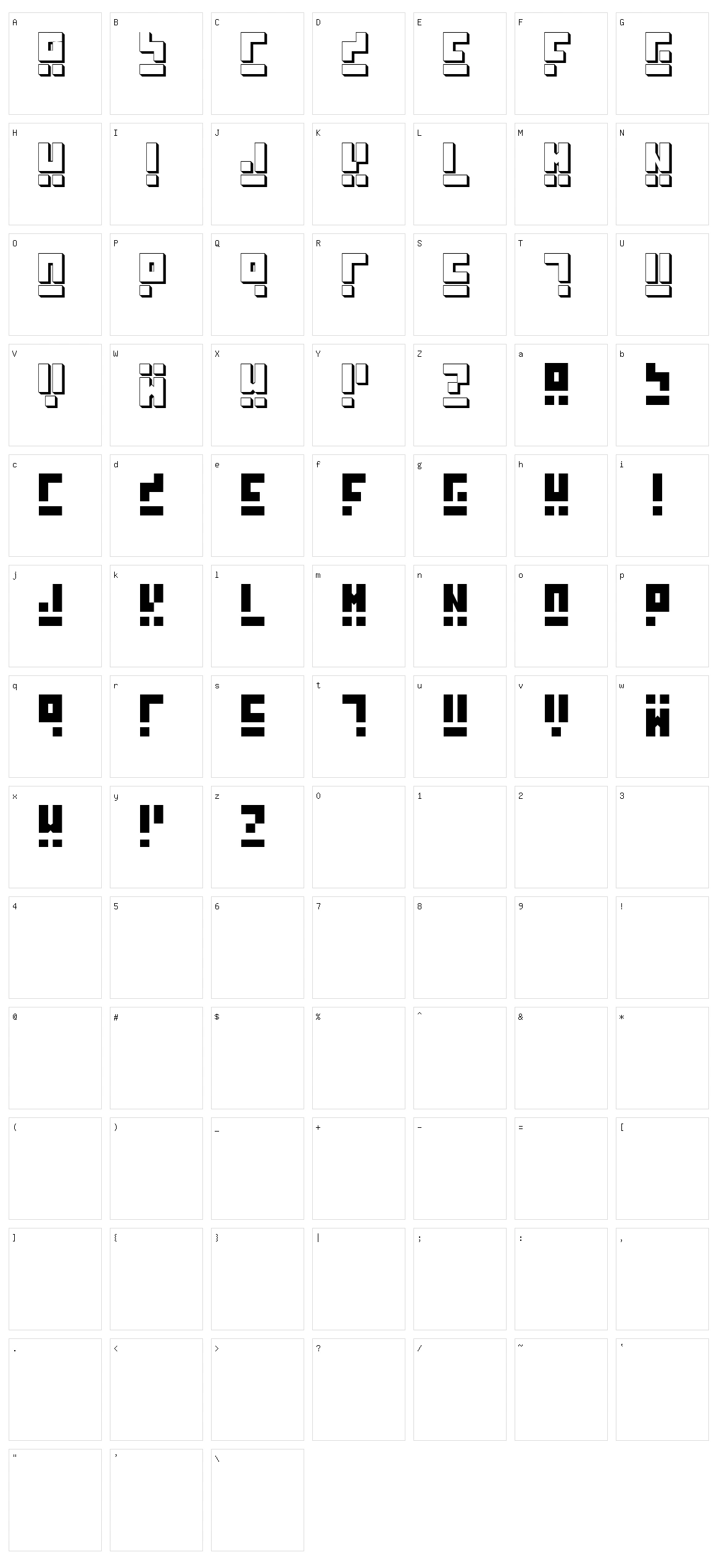
The free font Oh Jay is carefully designed by BC, showcasing a thoughtful balance of creativity and usability and falls under the Square font style. When you download the ZIP file, it contains only 7.07 KB of font files, making it lightweight and quick to download. Please review the license details below to understand permitted usage and distribution rights. If license information is not available, we recommend using this font for personal projects only or contacting the author directly for commercial usage permissions.